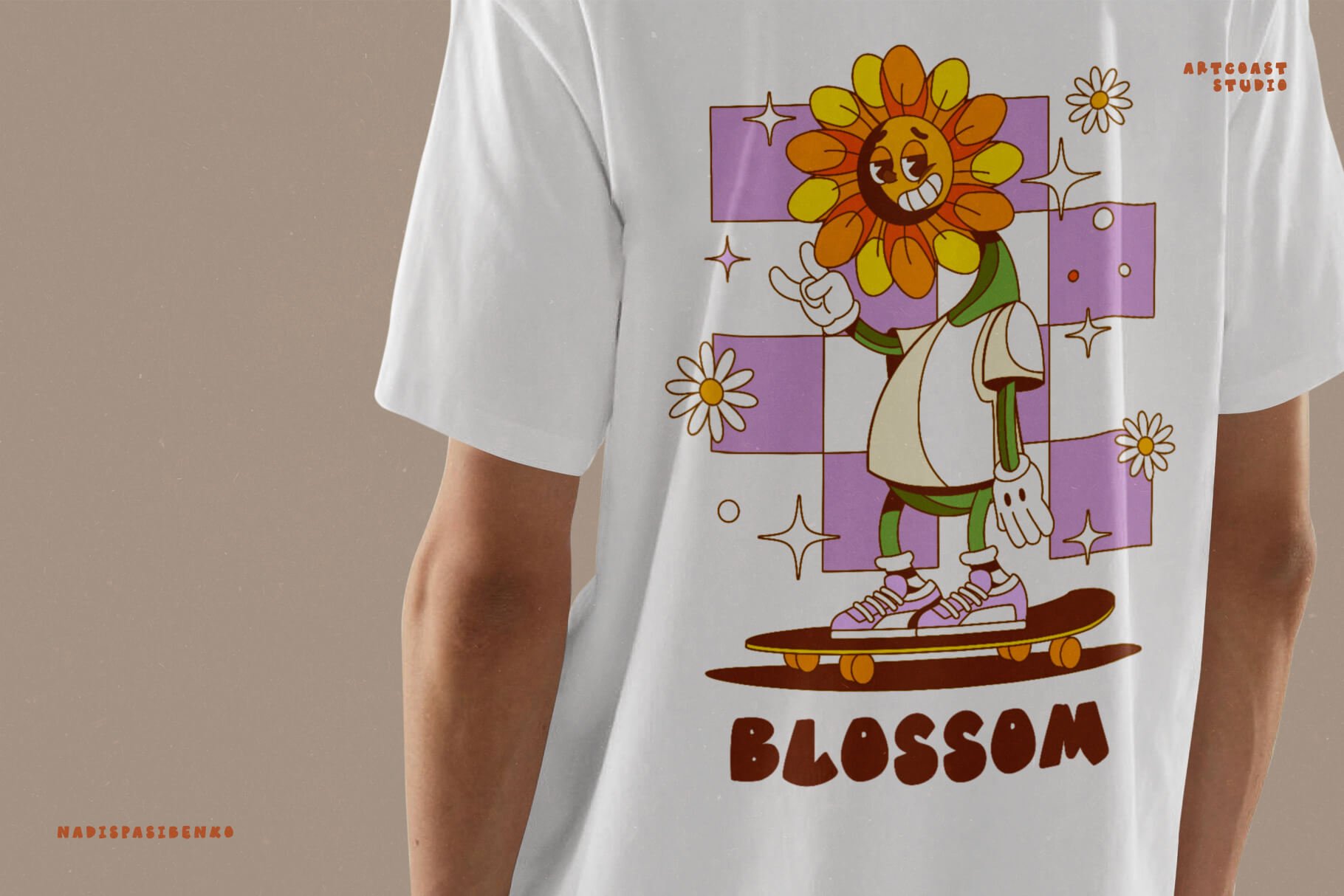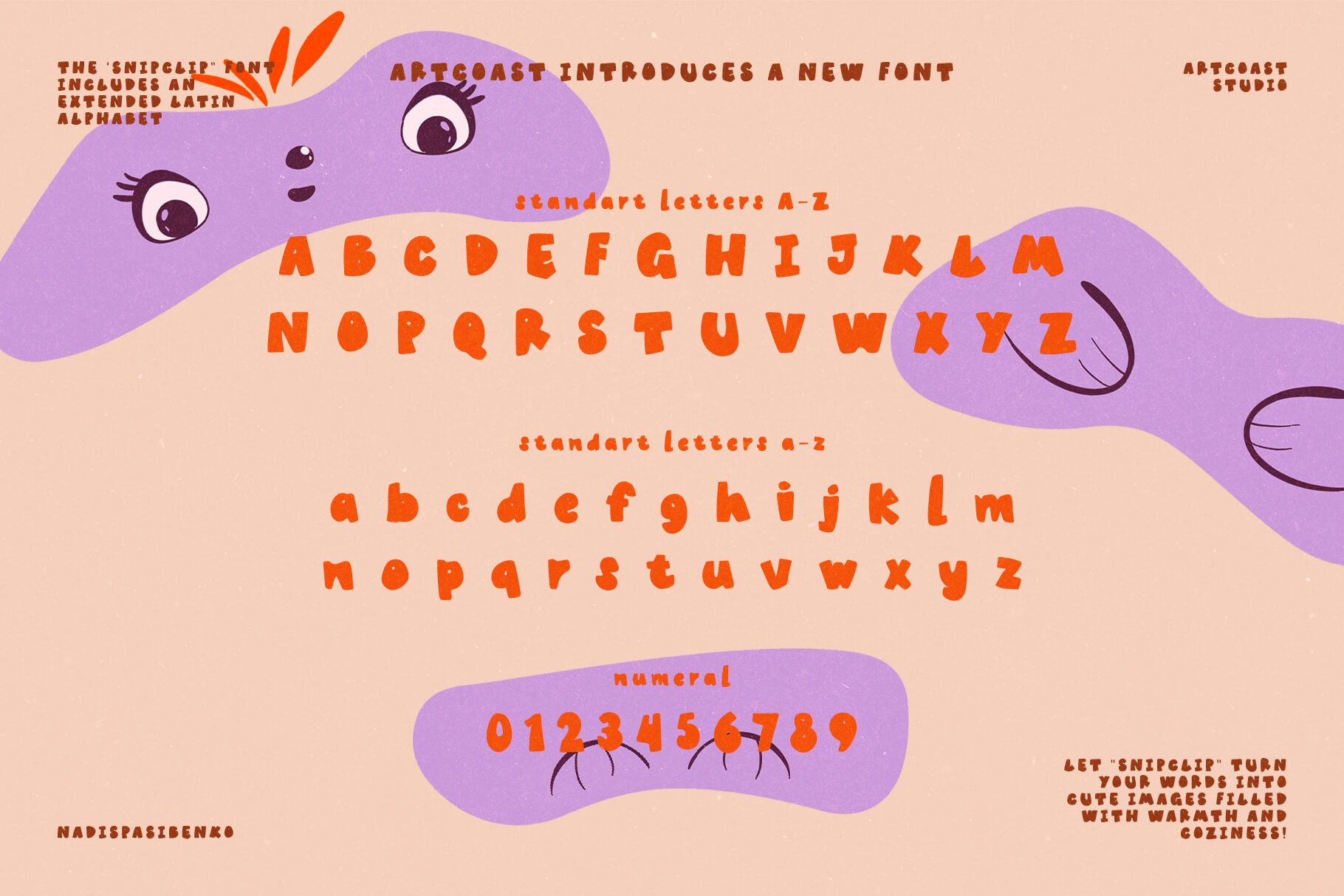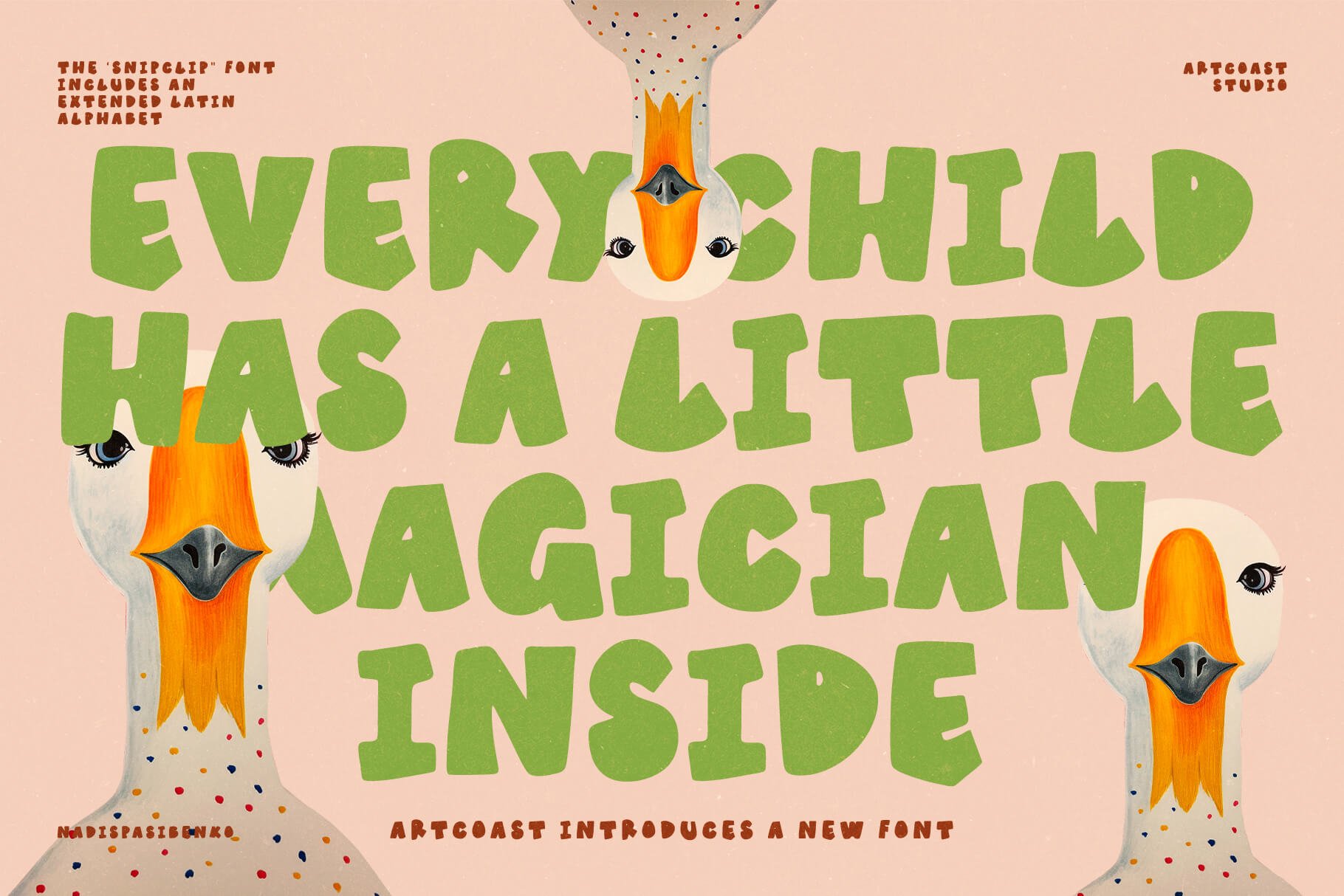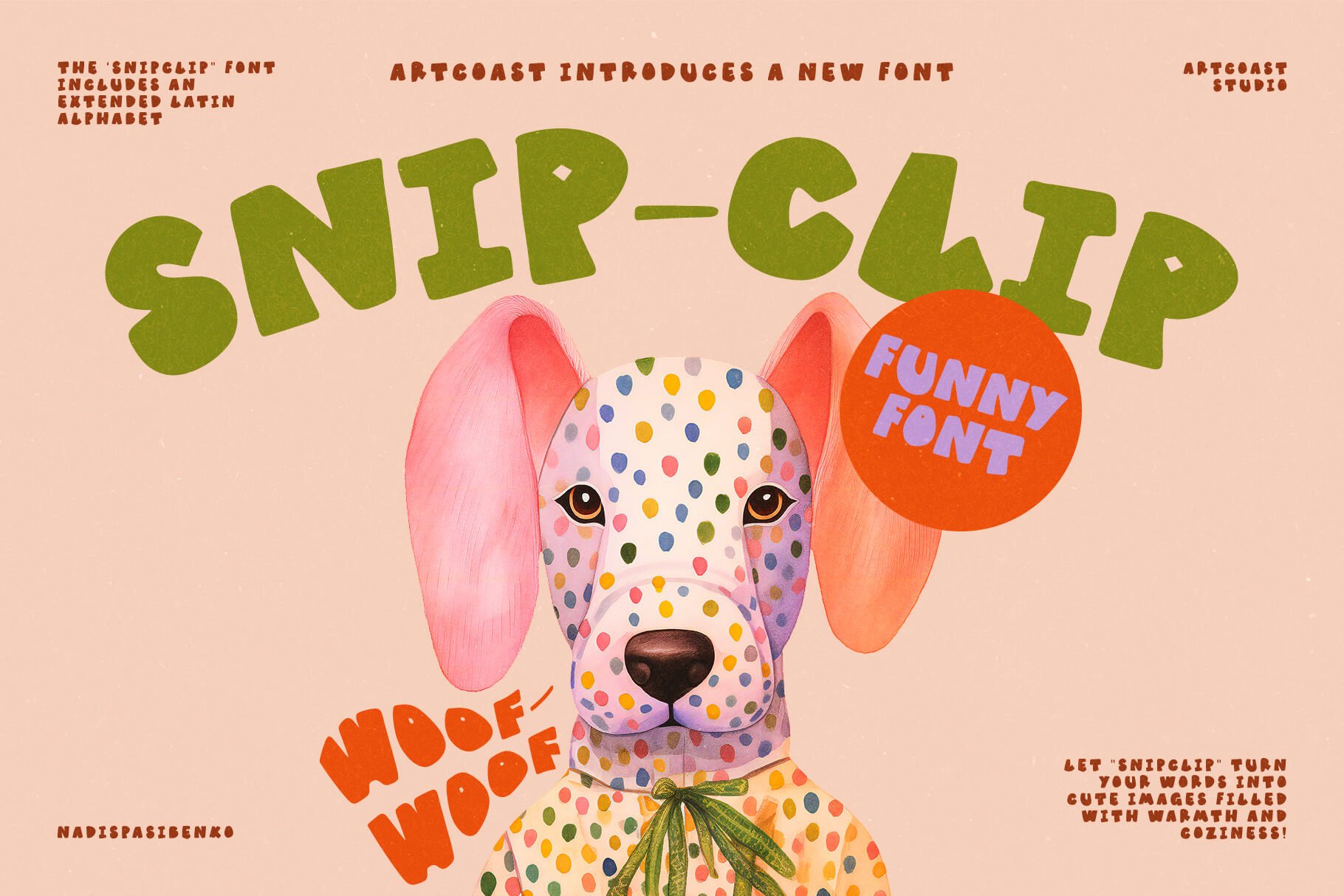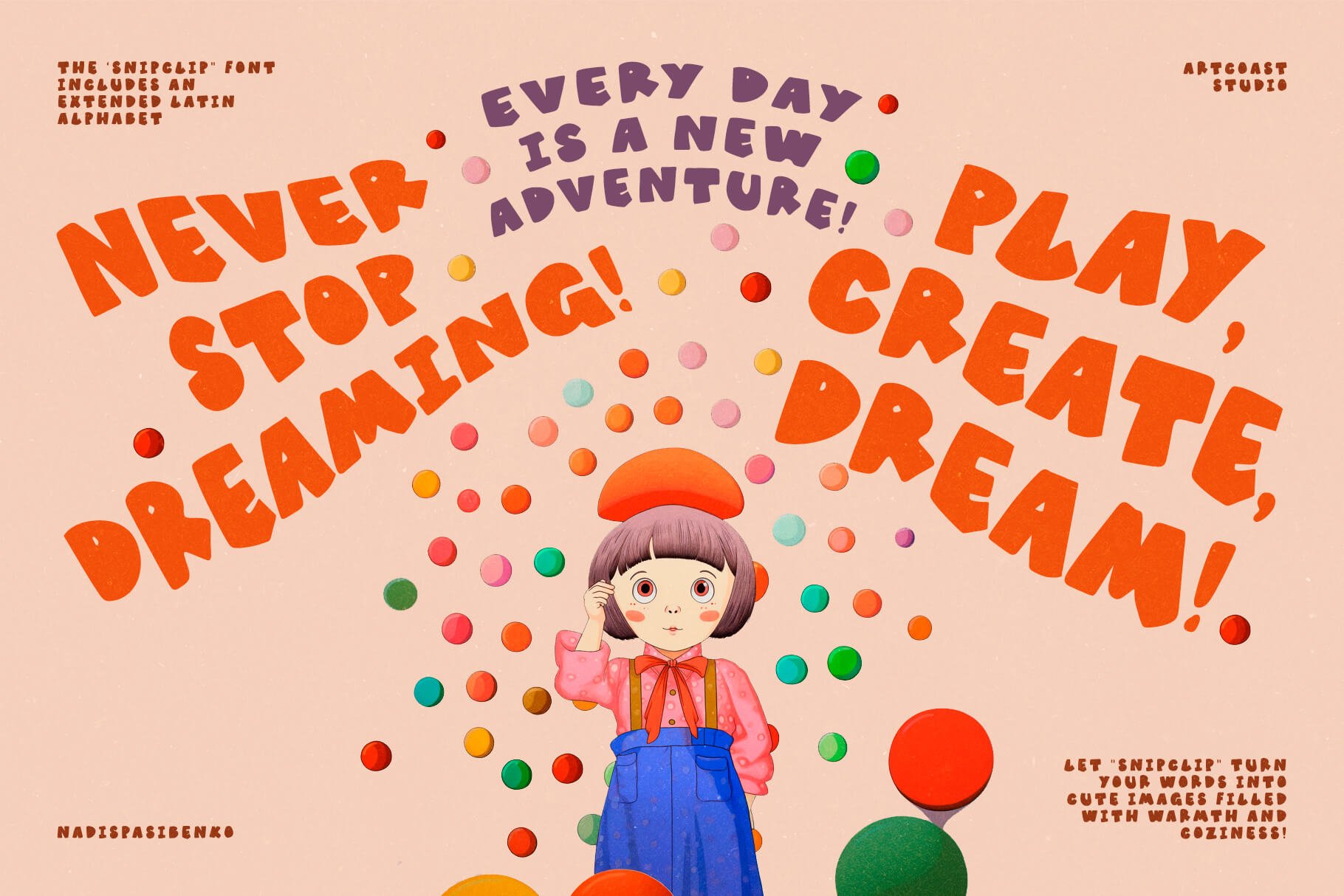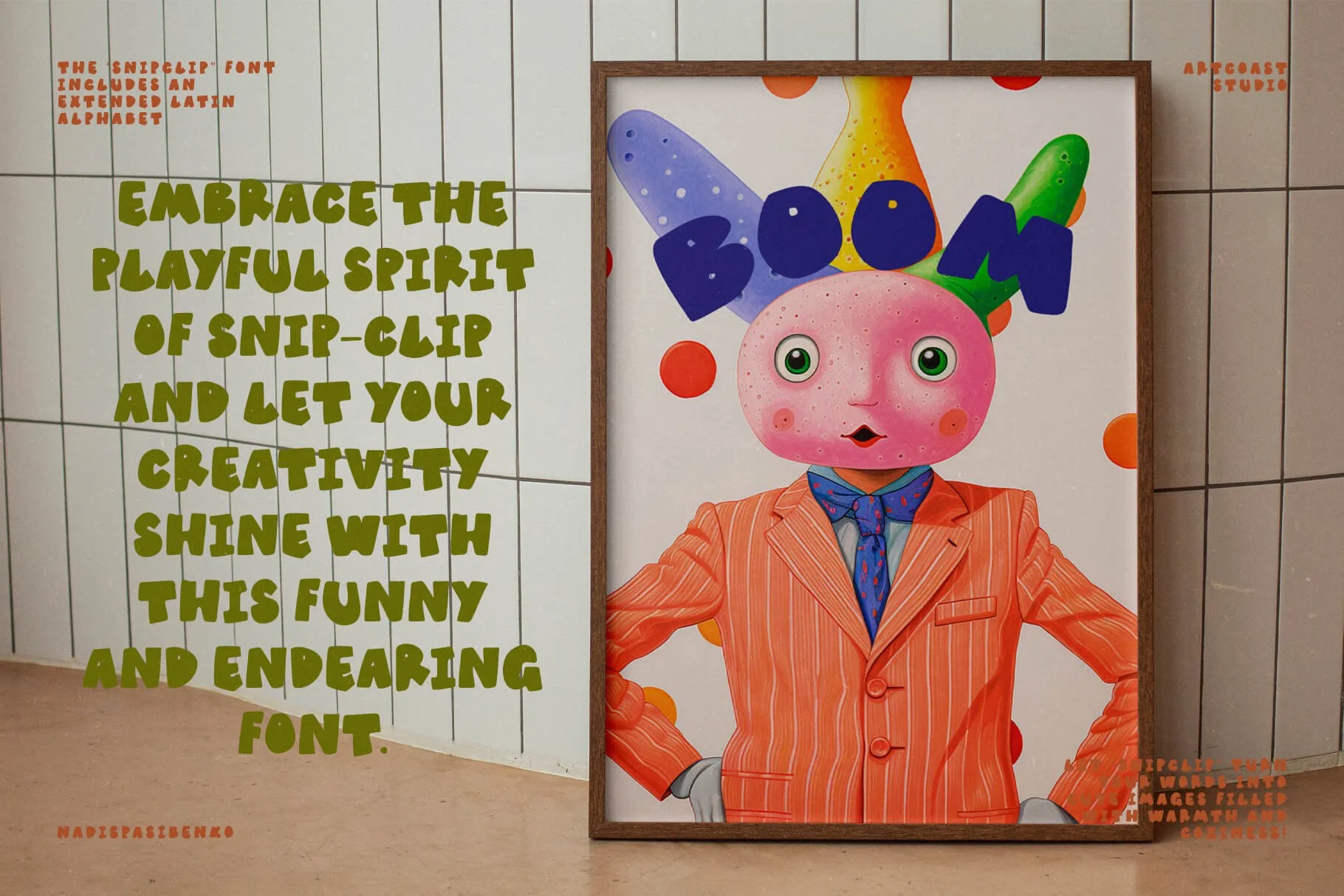
SnipClip Font: Hand-Drawn Playful Design for Creatives
SnipClip | Playful Font
SA SnipClip Bold: Whimsical Latin Alphabet Font
Unleash the inner magician in every child with our playful Snipclip Font! This charming, hand-drawn font brings a whimsical touch to your designs, making it perfect for children's books, posters, and creative projects that require a fun and lively aesthetic.
Snipclip Font includes an extended Latin alphabet, ensuring versatility and usability across a wide range of languages and applications. Its bold and quirky characters are designed to captivate and engage, adding a unique personality to your work.
• Hand-drawn, playful style
• Includes an extended Latin alphabet
• Ideal for children's books, posters, and creative projects
• Adds a fun and whimsical touch to your designs